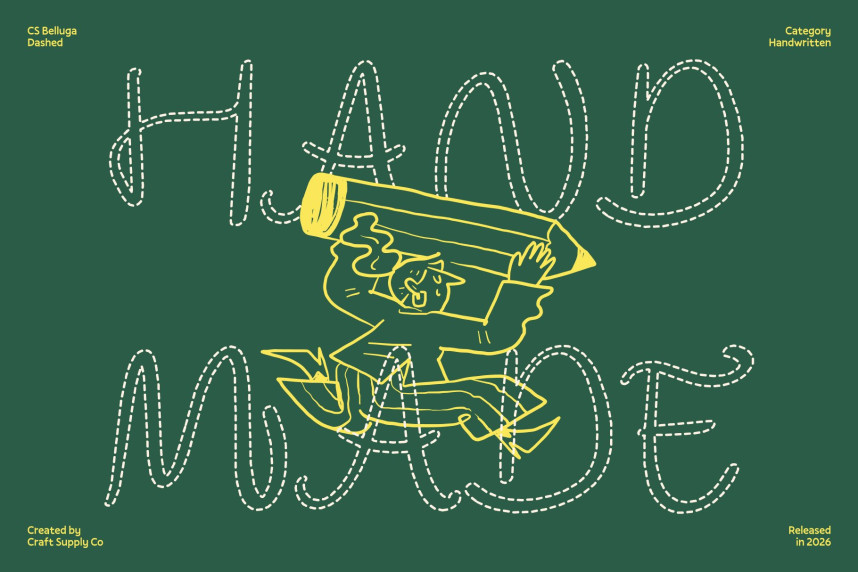
CS Belluga Dashed Font
CS Belluga Dashed Font – Whimsical Beauty with a Playful Heart
Handwritten Whimsy with a Dashed Flow
This is a lively, whimsical script font that combines graceful handwritten curves with a playful dashed structure. Each letter is composed of short, broken strokes that capture motion, spontaneity, and creative energy, giving your text a dynamic and airy personality.